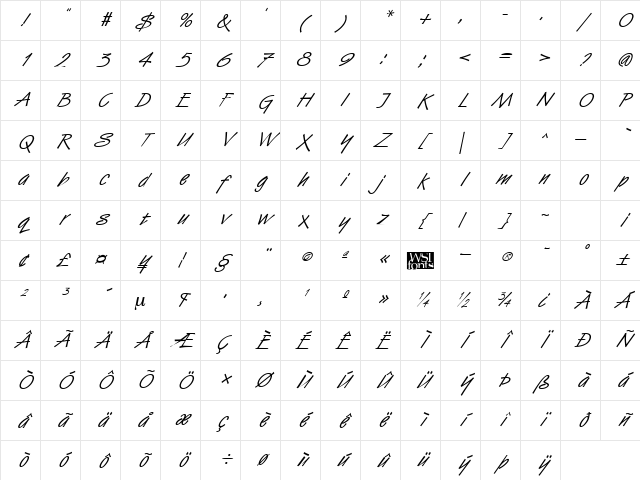
HandStroke Italic Free Font
HandStroke Italic
HandStroke Family
HandStroke Italic
Design Context for HandStroke
HandStroke flows with the natural rhythm of handwritten lettering, making it ideal for designs that call for warmth and personal expression.